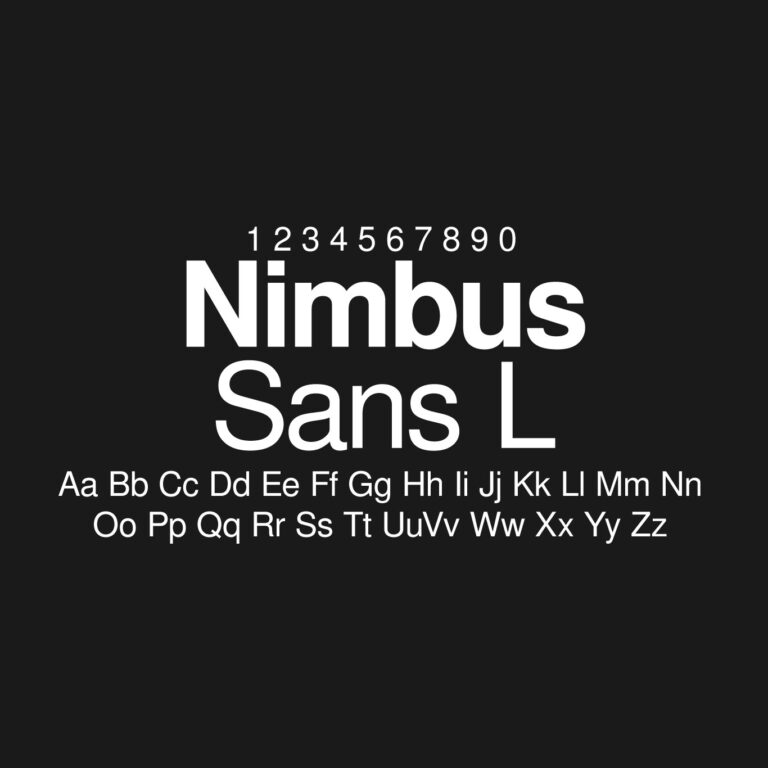
Nimbus Sans L is a neo-grotesque sans-serif typeface with a clean structure, balanced proportions and practical readability. It is often preferred as a free Helvetica alternative because of its neutral appearance, simple letterforms and professional typographic style. The font works well for branding, editorial layouts, posters, presentations, user interfaces, websites, packaging, business documents and design projects that need a Helvetica-like sans-serif look.
Category: Neo-Grotesque Sans Serif